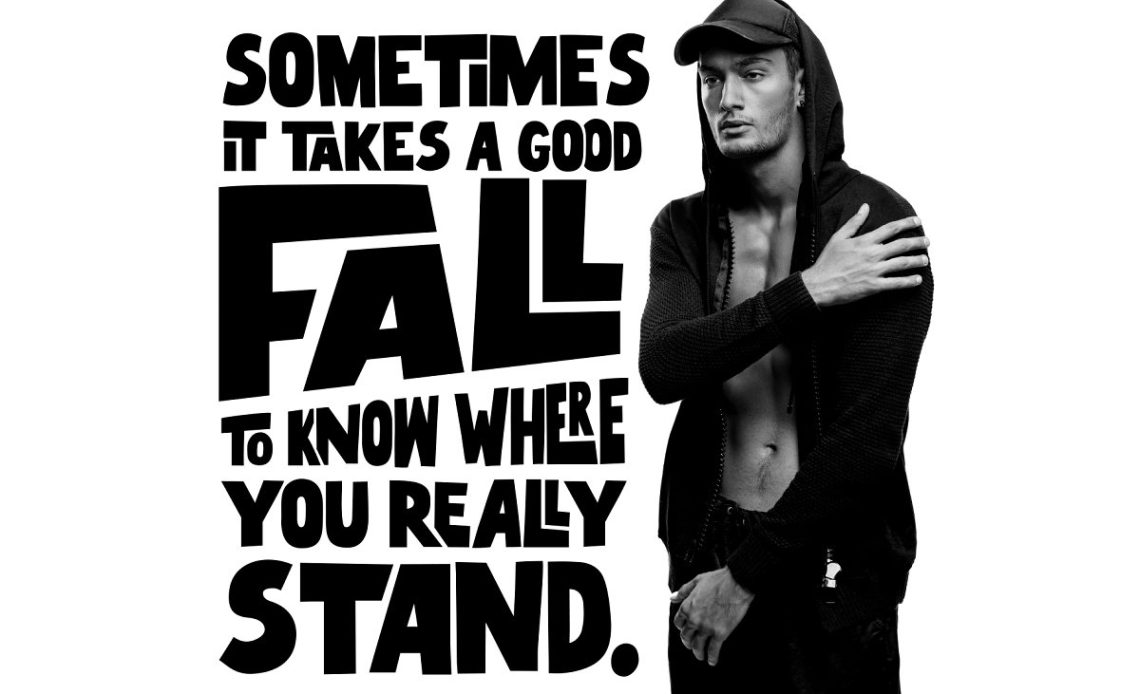
Introducing Beautiful Freak, the modern bold, quirky display font that brings a fun, trendy street style vibe to your designs. This sans serif font family, created by Simon Stratford, is the perfect addition to your creative work, from posters to t-shirts and packaging.
Beautiful Freak's hand-drawn outlines are irregular and quirky, giving it a charming but modern look and feel, almost like hand-lettering. This font also includes a host of alternatives and ligatures, allowing you to switch out letters and create unique type lockups that look like hand-lettering.
With 87 ligatures and at least three alternative A to Z characters, Beautiful Freak lets you create less repetitive text and make your designs stand out. And with OpenType features, you can easily access these options in Adobe applications like Photoshop, Illustrator or InDesign.
If you're looking for a font with personality and attitude, Beautiful Freak is the one for you. This font will elevate your designs and give them a cool, hipster edge that your audience will love.
Whether you're a graphic designer, a brand owner, or a creative enthusiast, Beautiful Freak is the perfect choice for adding a unique touch to your work. So, why settle for the boring and mainstream fonts when you can have Beautiful Freak?